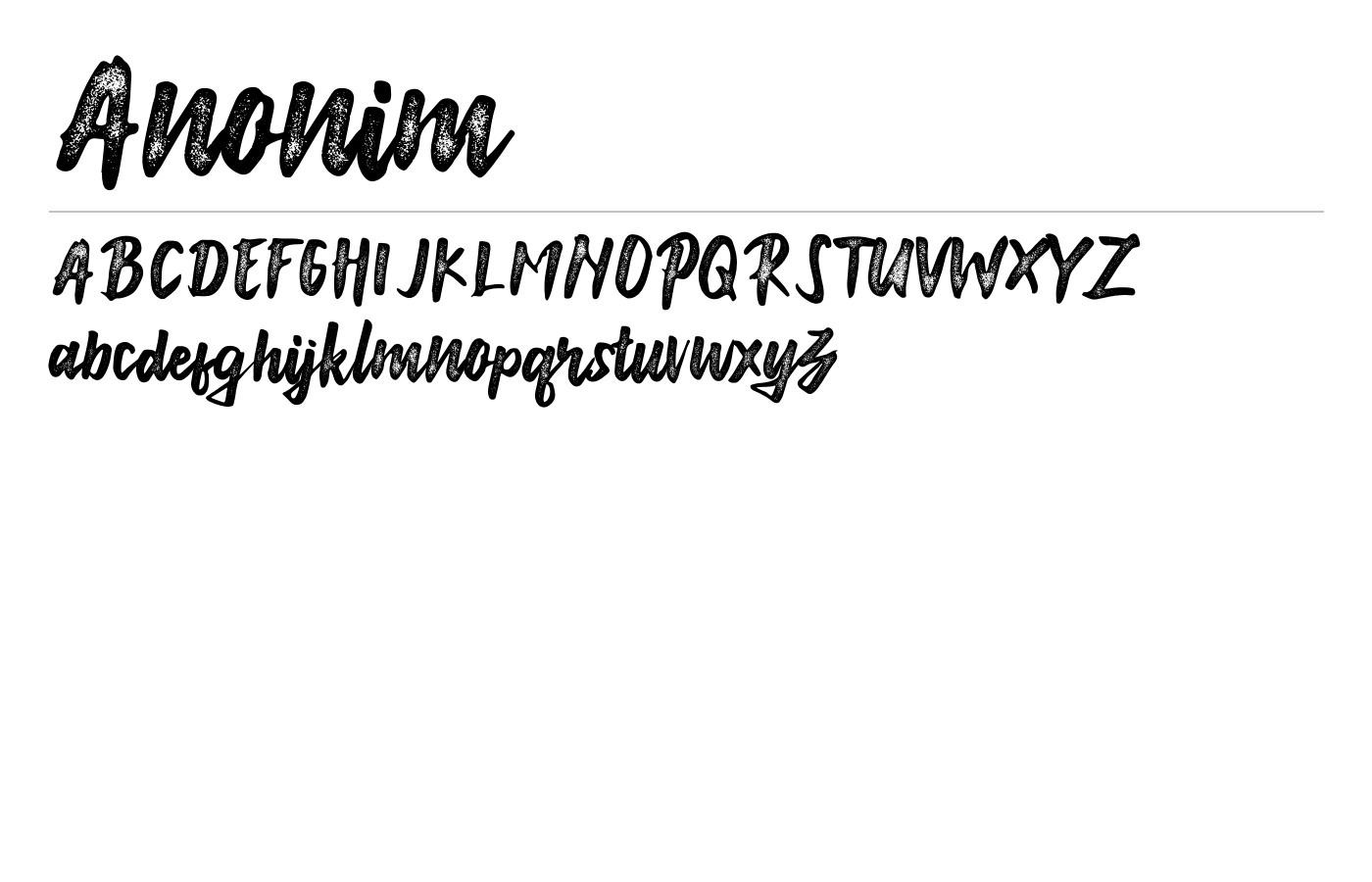
Anonim is a bold, textured script font with a casual, hand-drawn feel that exudes energy and personality. Its brushstroke style with rough edges makes it perfect for creative projects that want to convey a lively, informal vibe, such as logos, posters, and trendy branding. This font’s friendly yet dynamic appearance works well for eye-catching headlines and designs that need a unique, artistic touch.
Anonim Font